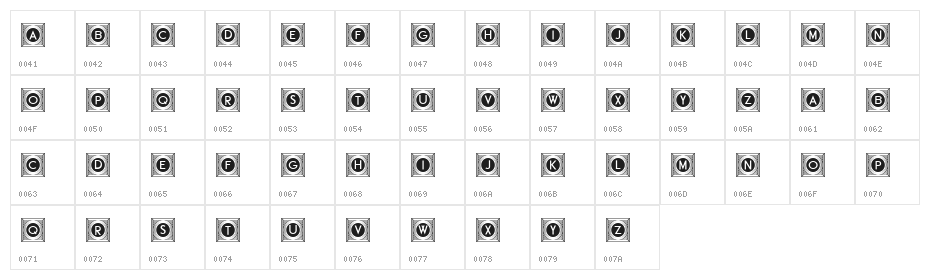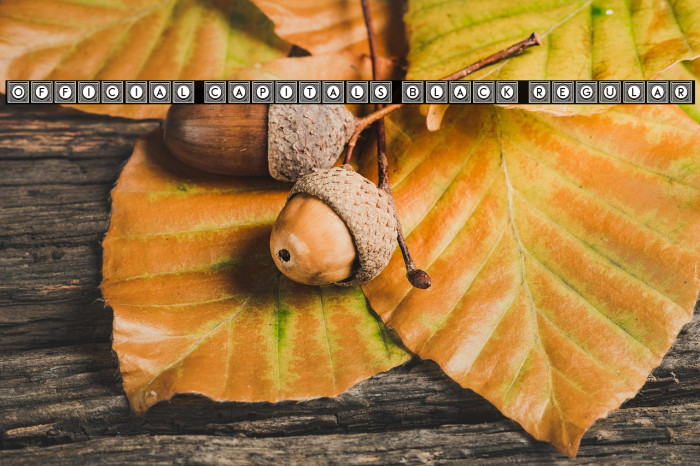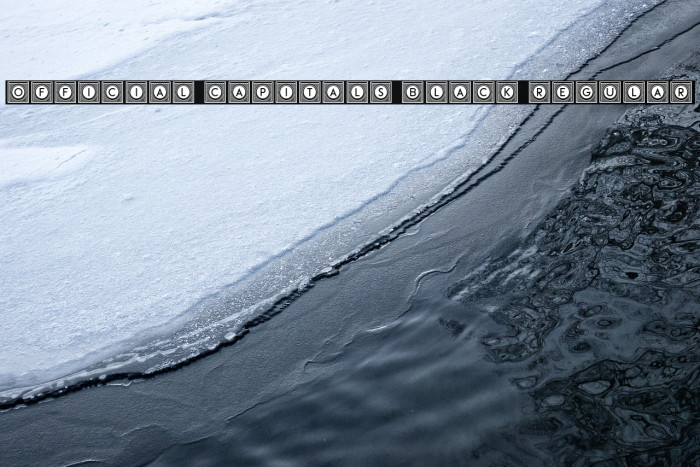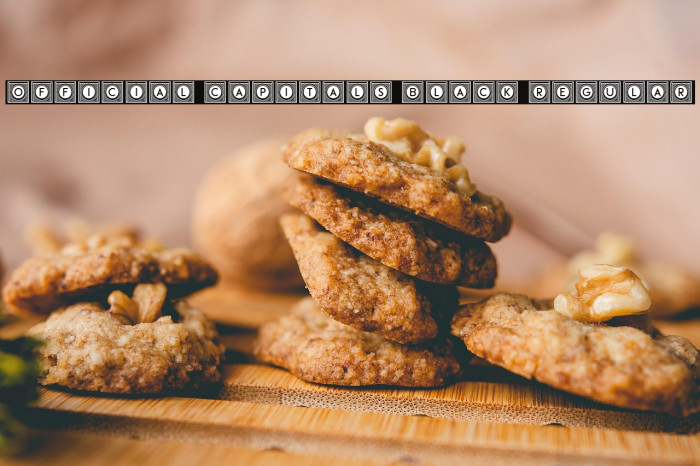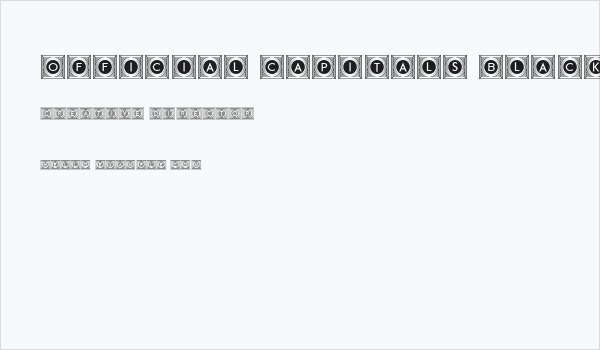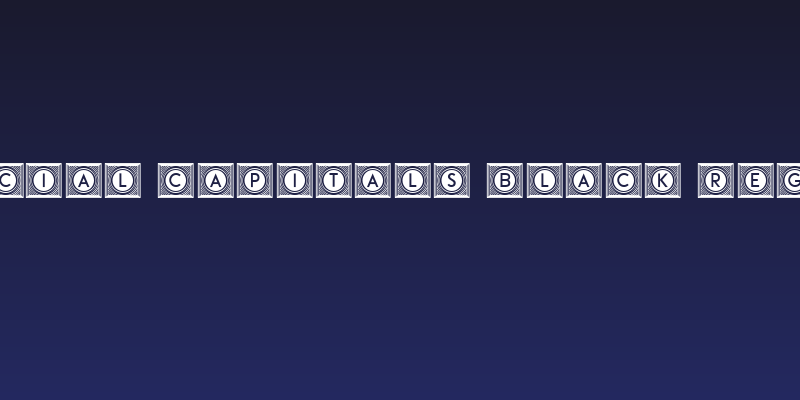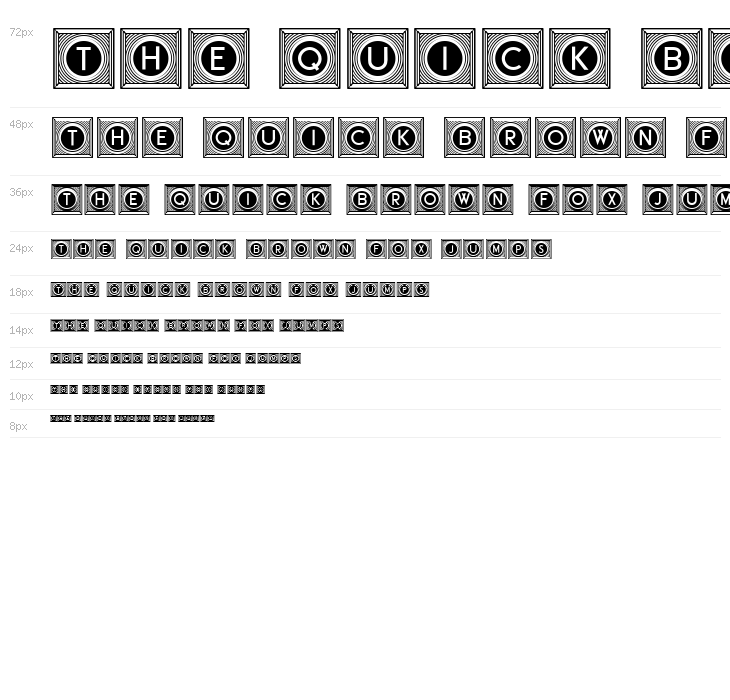
Official Capitals Black Regular Font
Official Capitals Black Regular Description
This font features bold, uppercase letters encased in a decorative square border. Each letter is centered within a series of concentric squares, creating a striking visual effect. The design is reminiscent of vintage signage, with a strong emphasis on geometric shapes and symmetry. The letters themselves are sans-serif, offering a clean and modern look that contrasts with the ornate border. The overall aesthetic is both classic and contemporary, making it suitable for a variety of design applications.
| Use Case | Logos, Posters, Signage |
| Proposed Projects | Ideal for use in logos, posters, and signage where a bold, eye-catching statement is needed. |